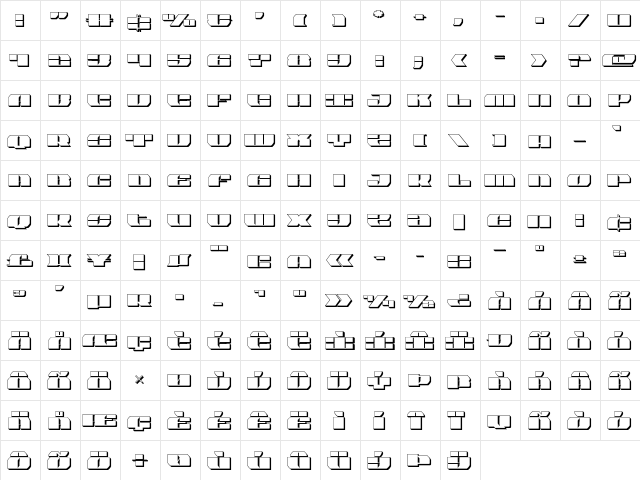
Joy Shark 3D Regular
Design Context for Joy Shark 3D Typeface
Joy Shark 3D is a composed and adaptable typeface that performs quietly and consistently across a wide range of design contexts.